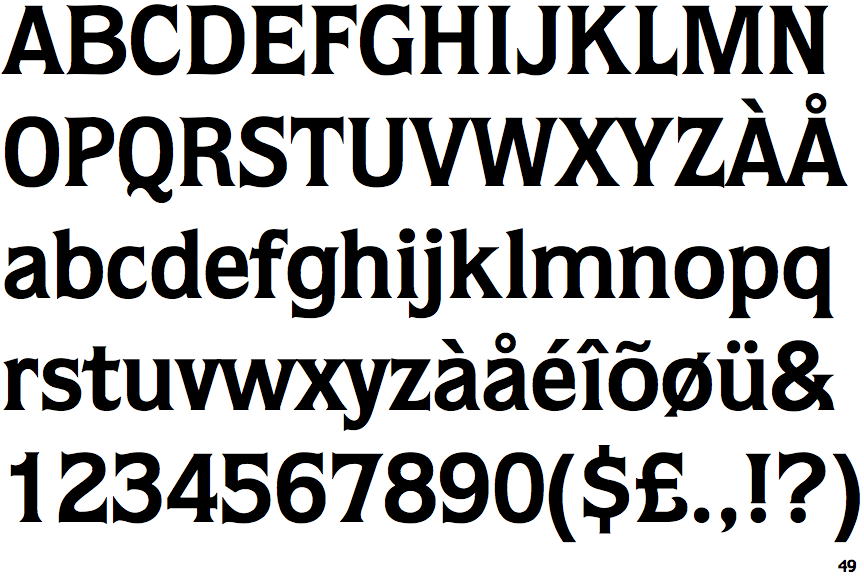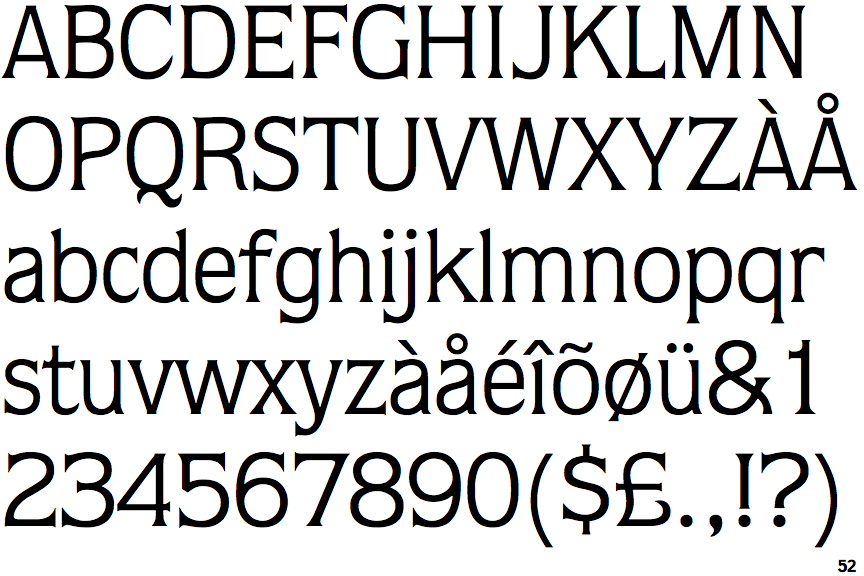
Itc Quorum Font
Itc Quorum Font - The typeface displays a distinctive,. Web itc quorum was designed by ray baker to neatly fill the gap between serif and sans serif. Web buy itc quorum complete family pack desktop font from itc on fonts.com.
Web itc quorum was designed by ray baker to neatly fill the gap between serif and sans serif. Web buy itc quorum complete family pack desktop font from itc on fonts.com. The typeface displays a distinctive,.
The typeface displays a distinctive,. Web buy itc quorum complete family pack desktop font from itc on fonts.com. Web itc quorum was designed by ray baker to neatly fill the gap between serif and sans serif.
ITC Quorum Font
The typeface displays a distinctive,. Web itc quorum was designed by ray baker to neatly fill the gap between serif and sans serif. Web buy itc quorum complete family pack desktop font from itc on fonts.com.
ITC Quorum Light Fonts
Web itc quorum was designed by ray baker to neatly fill the gap between serif and sans serif. The typeface displays a distinctive,. Web buy itc quorum complete family pack desktop font from itc on fonts.com.
Identifont ITC Quorum Bold
The typeface displays a distinctive,. Web itc quorum was designed by ray baker to neatly fill the gap between serif and sans serif. Web buy itc quorum complete family pack desktop font from itc on fonts.com.
Identifont ITC Quorum
Web buy itc quorum complete family pack desktop font from itc on fonts.com. Web itc quorum was designed by ray baker to neatly fill the gap between serif and sans serif. The typeface displays a distinctive,.
Web buy itc quorum complete family pack desktop font from itc on fonts.com. The typeface displays a distinctive,. Web itc quorum was designed by ray baker to neatly fill the gap between serif and sans serif.
Web itc quorum was designed by ray baker to neatly fill the gap between serif and sans serif. The typeface displays a distinctive,. Web buy itc quorum complete family pack desktop font from itc on fonts.com.
The typeface displays a distinctive,. Web itc quorum was designed by ray baker to neatly fill the gap between serif and sans serif. Web buy itc quorum complete family pack desktop font from itc on fonts.com.
The typeface displays a distinctive,. Web itc quorum was designed by ray baker to neatly fill the gap between serif and sans serif.